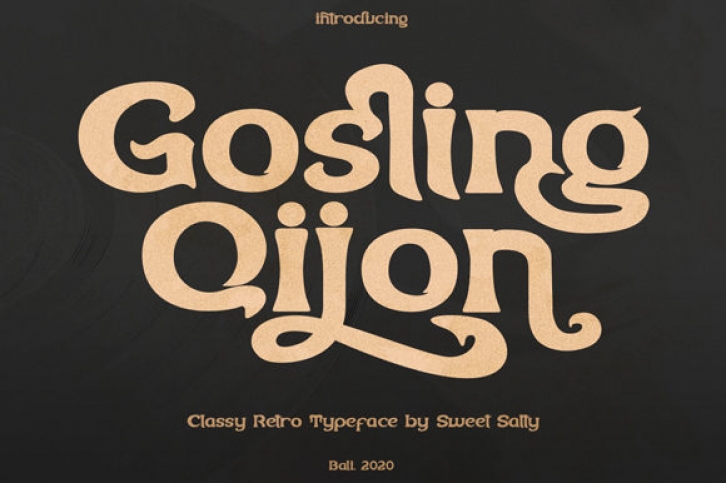
Gosling Qijon is a chunky lettered, yet distinct display font. Characterized by a vintage style, this font fits a wide variety of designs. Add it to your favorite ideas and notice how it makes them stand out!